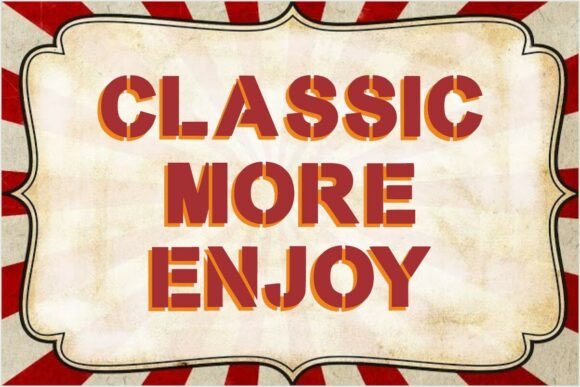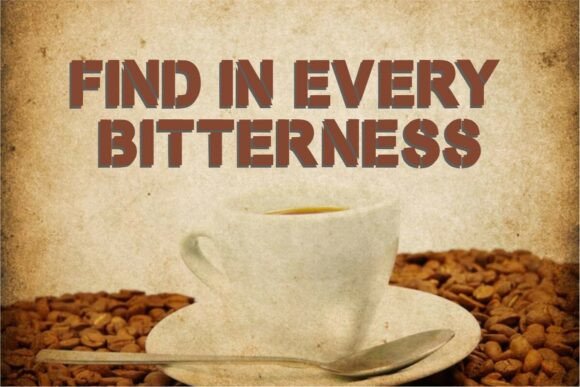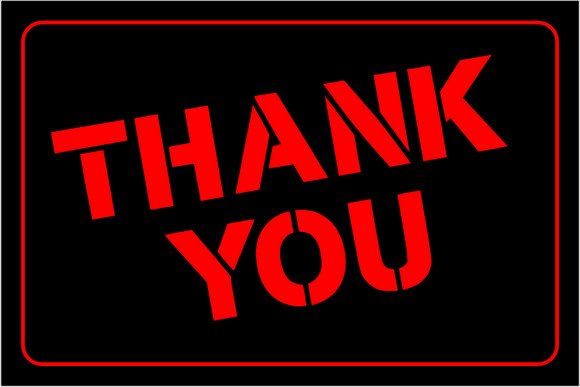
Introduction to Retroclassic Regular Font
Retro Classic is a classic vintage font, a display font that harkens back to the past, recalling the simplicity of life, and conveying a refined sense of friendliness.
Whether you use it for crafts, digital design, presentations, or writing old-school short stories, this font has the potential to become your favorite, no matter the occasion .